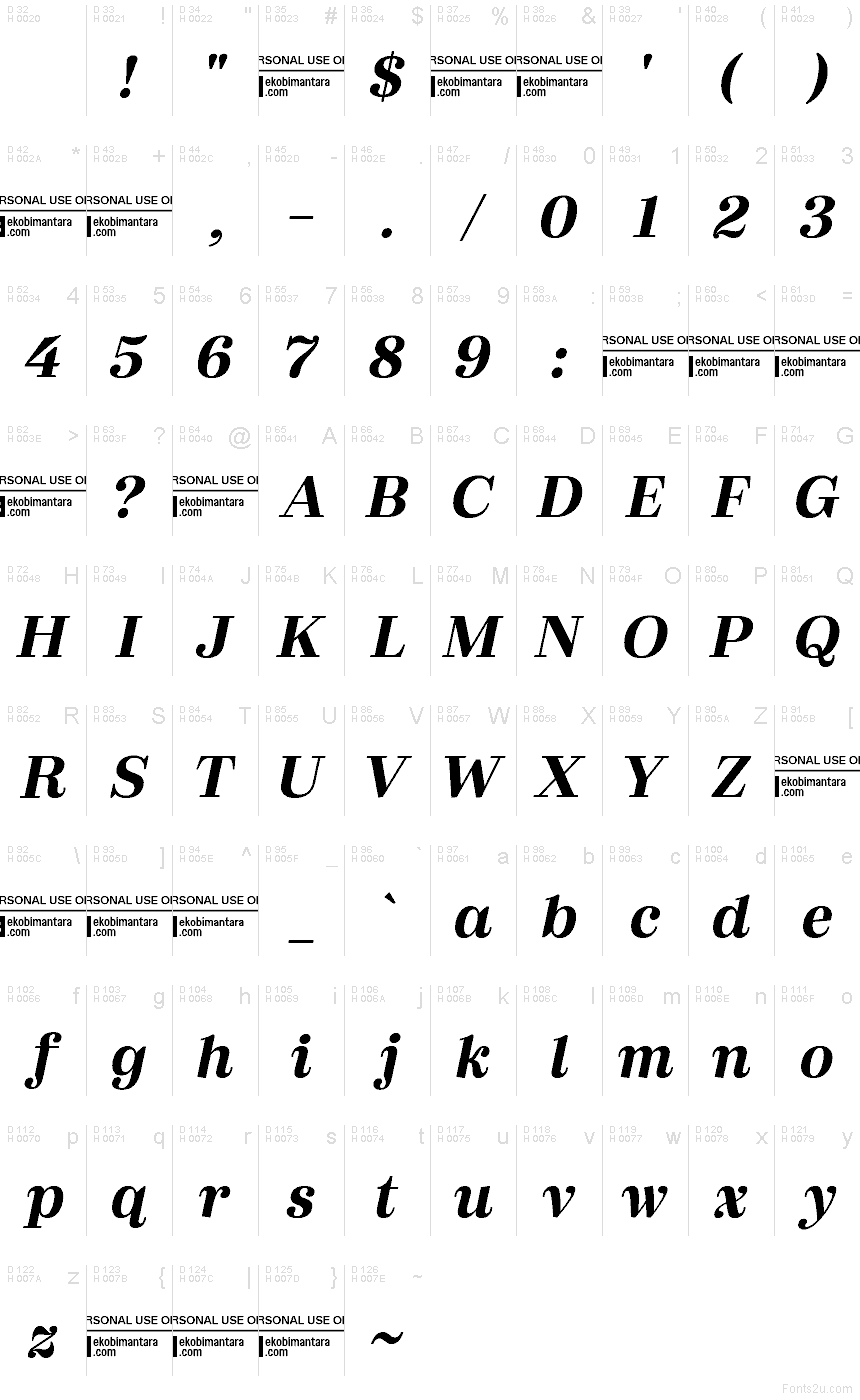
Marchise Trial Bold Italic
Marchise Bold Italic font by Eko Bimantara is a free bold serif font that leans in with luxurious contrast and velvety curves. Part of the Marchise family, it stands out with sculpted teardrop terminals, razor-fine hairlines, and a rhythmic slant that feels both stately and sultry. The strokes look inky and deliberate, with tight, confident spacing that turns simple words into statement pieces.
Using Marchise Bold Italic, headlines gain a couture snap for wine labels, boutique logos, editorial mastheads, beauty packaging, menus, and poster titles. This free font shines when set large with a touch of tracking; pair it with a crisp neo-grotesk or the Marchise roman for calm body copy.